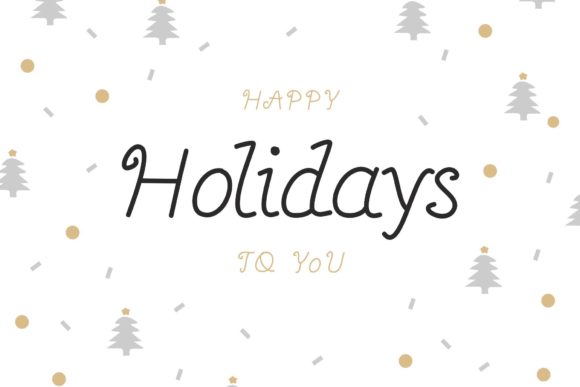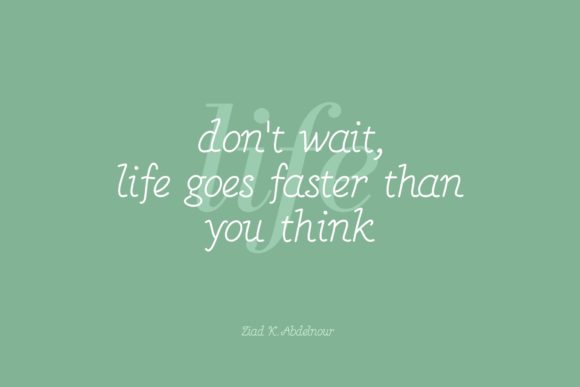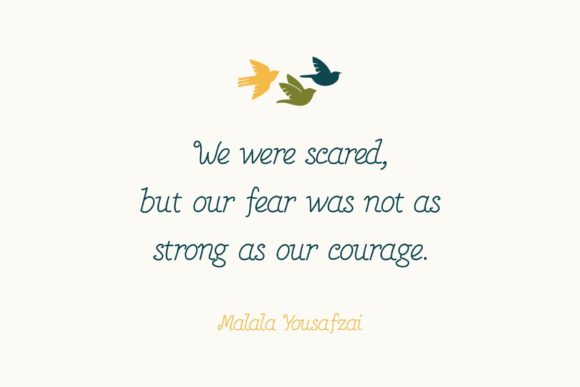
Genevieve Font
About Genevieve Font
Genevieve is a thin lettered and subtle, vintage styled handwritten font. It will add a luxury spark to any design project that you wish to create!